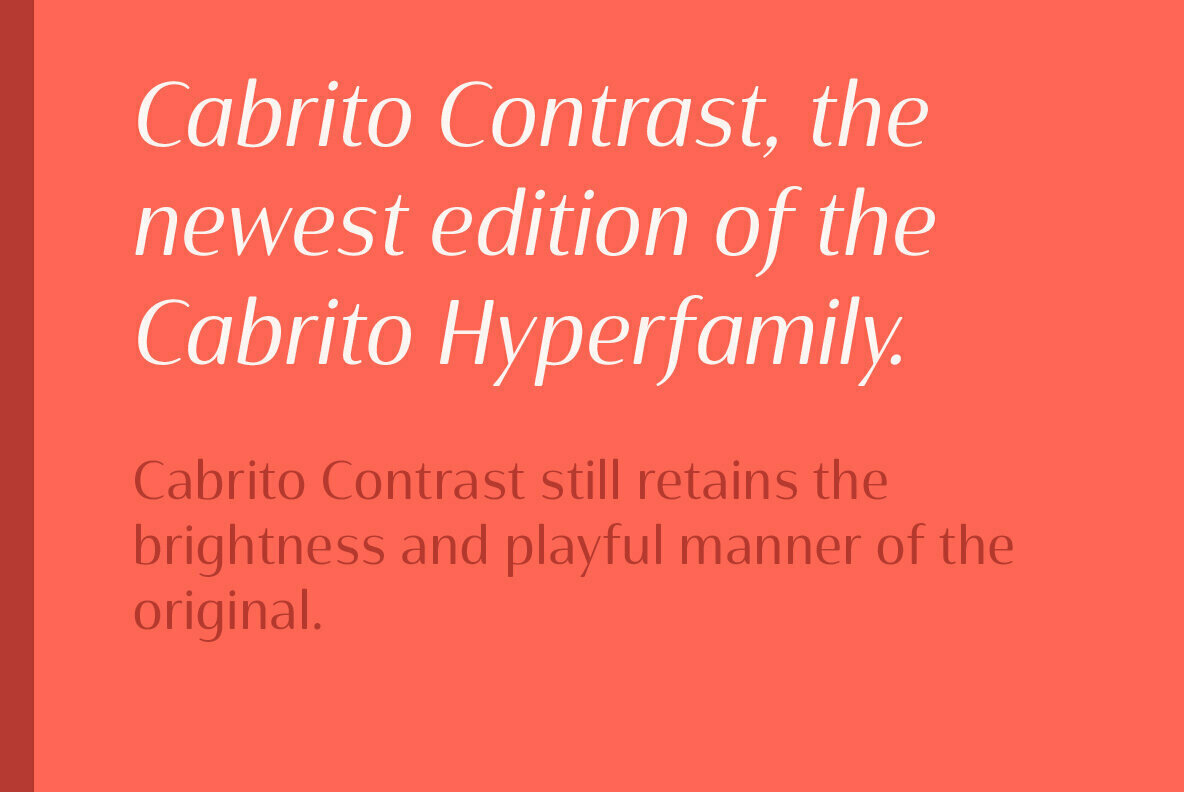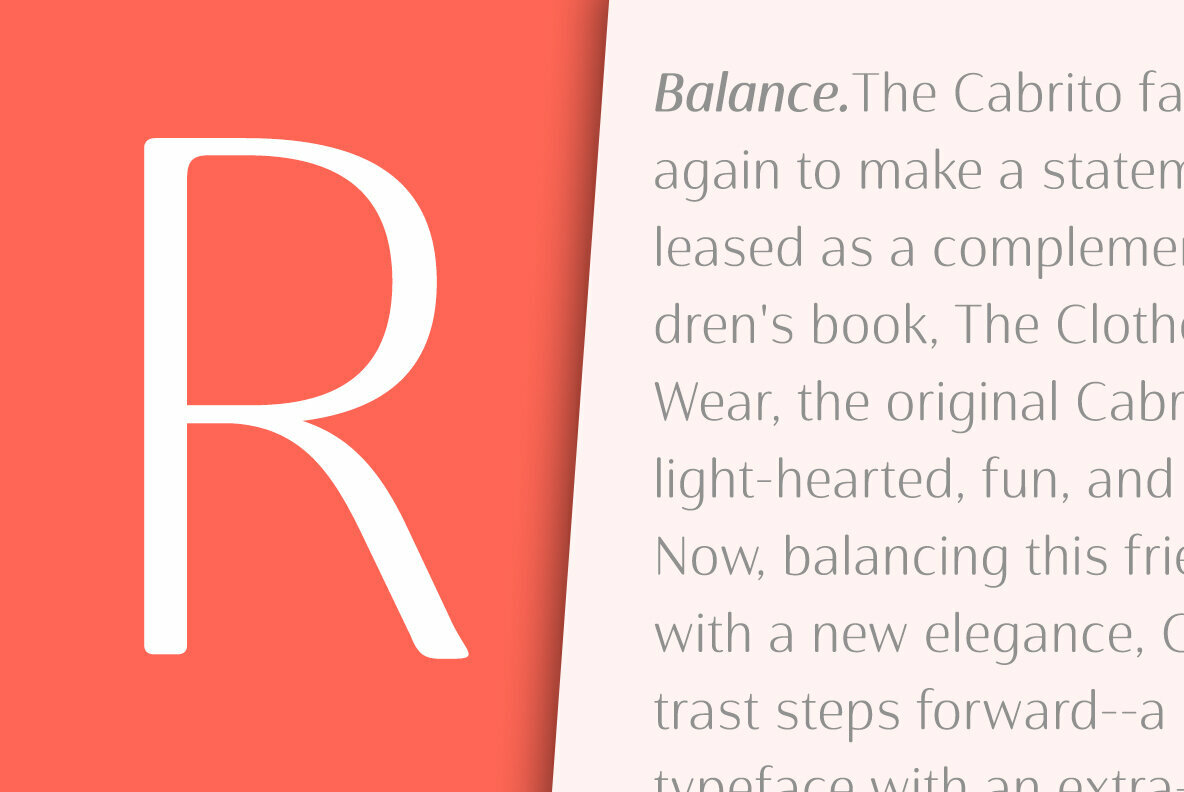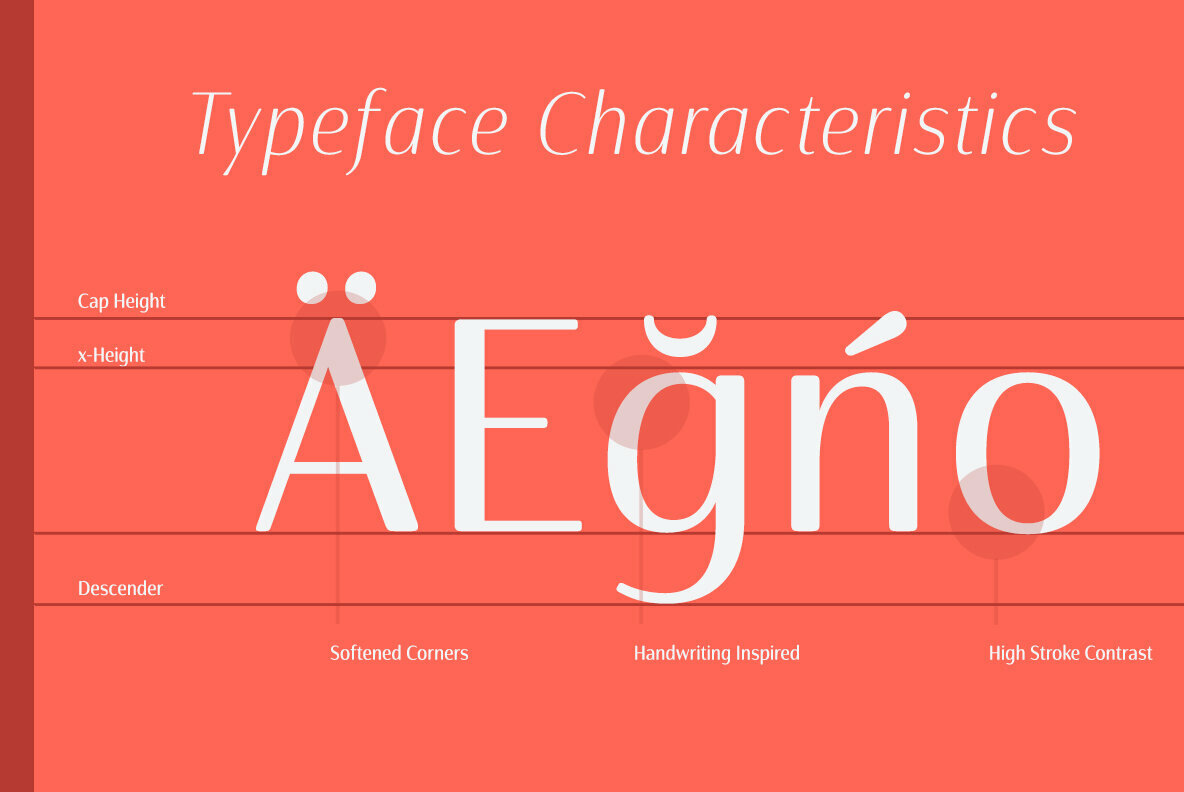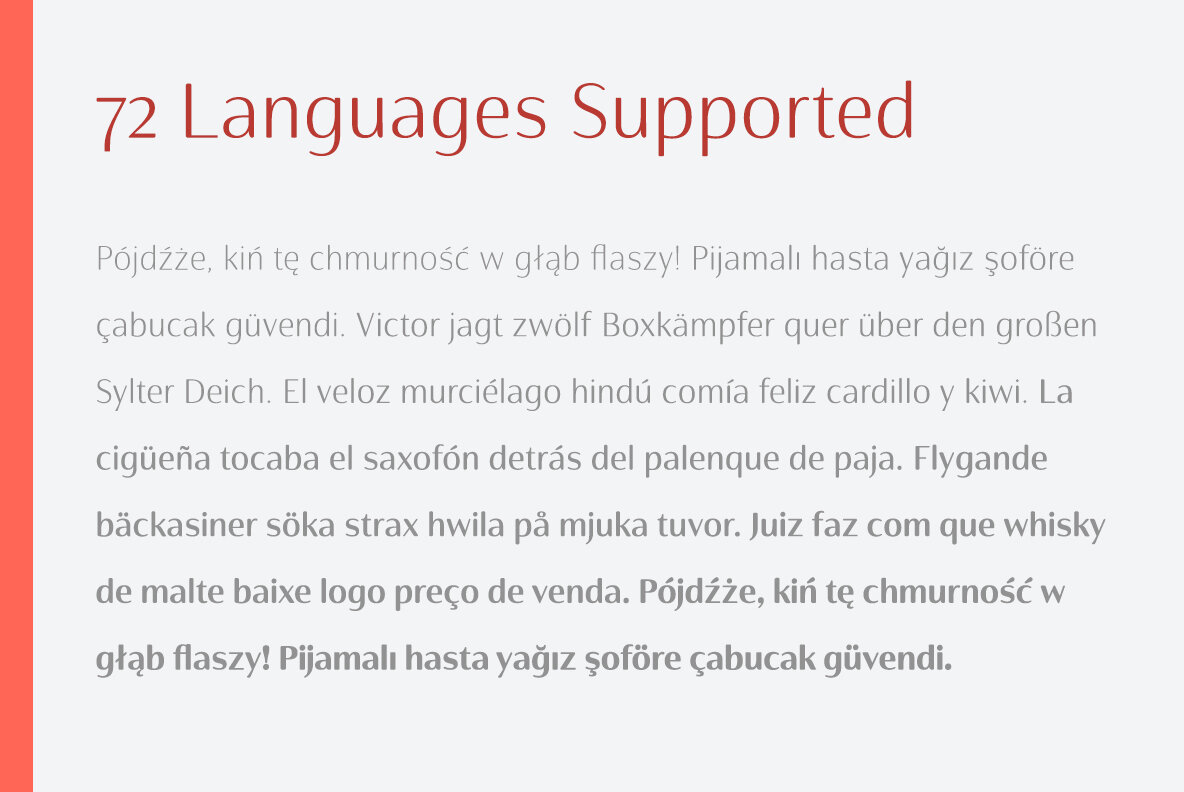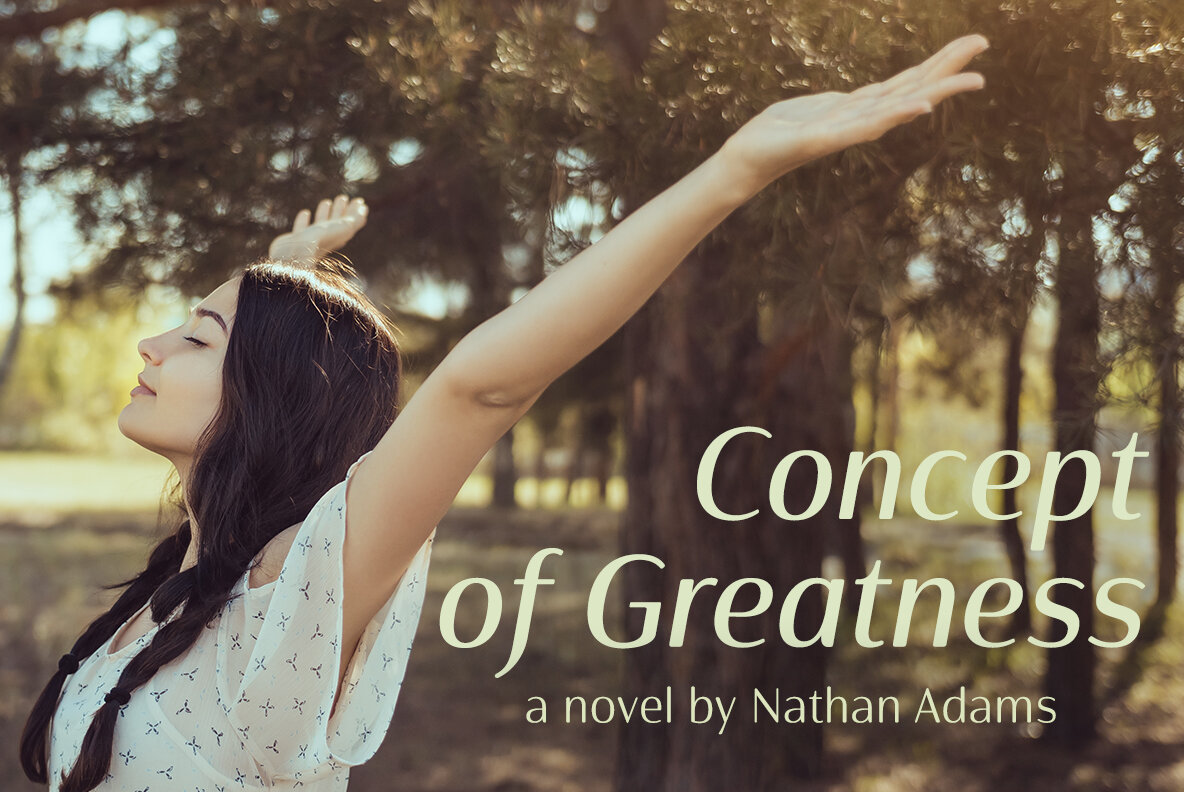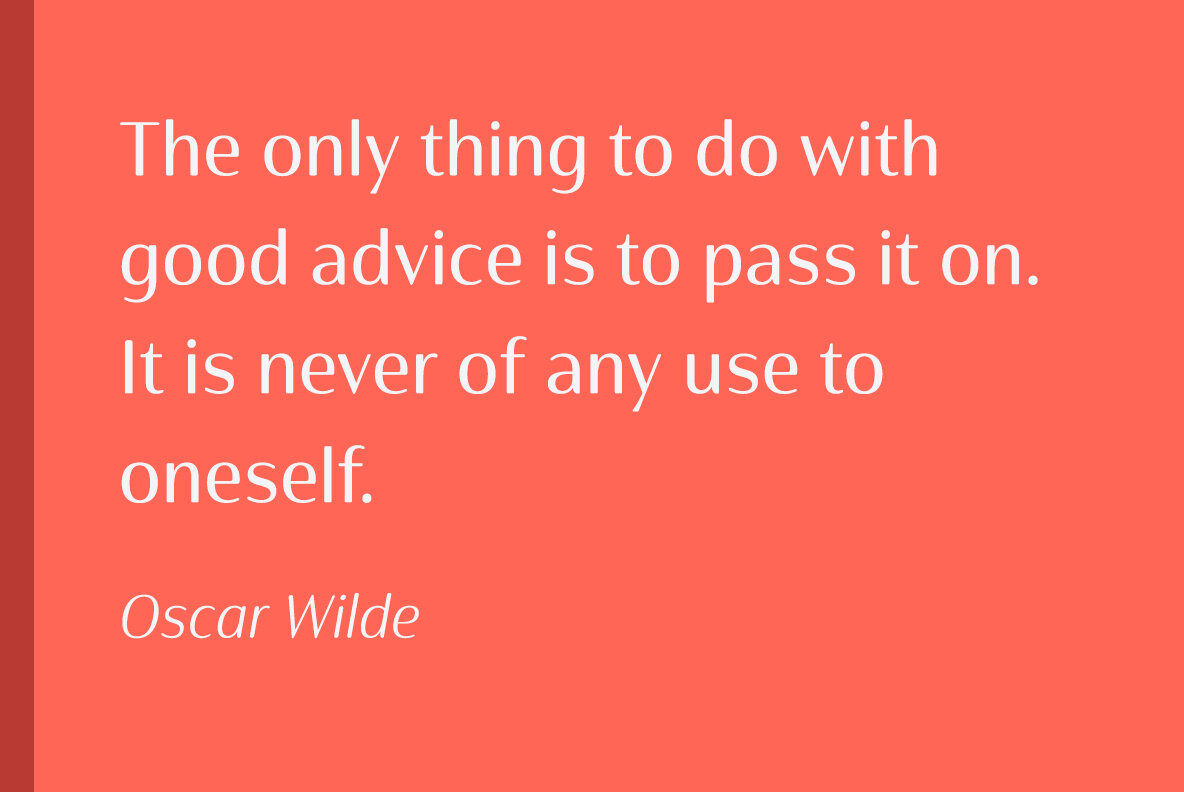
Cabrito Contrast Font
Take a stroll with Cabrito Contrast, and see how much fun refinement can be. Along the way, take a look at a few other members of Cabrito, too and see how well the likes of Original, Inverto or Didone can pair with the new Contrast.